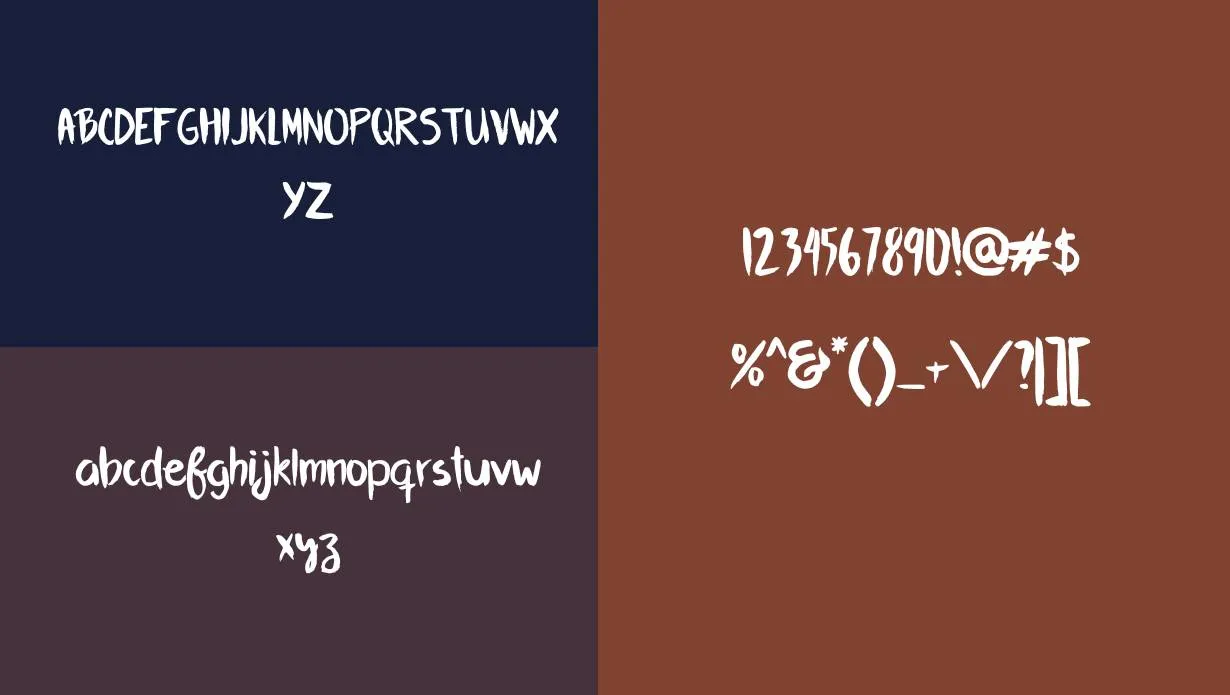
Feel the rhythm and movement with Flow Font. Its dynamic characters create a sense of energy and motion, making it perfect for projects that require a lively and expressive feel.
Whether you’re designing a music festival poster, a dance event invitation, or anything that demands a vibrant and rhythmic design, Flow Font ensures your text flows with creativity. When striving for a design that stands out and captures attention, the key is to pair this font with the silicia script font.